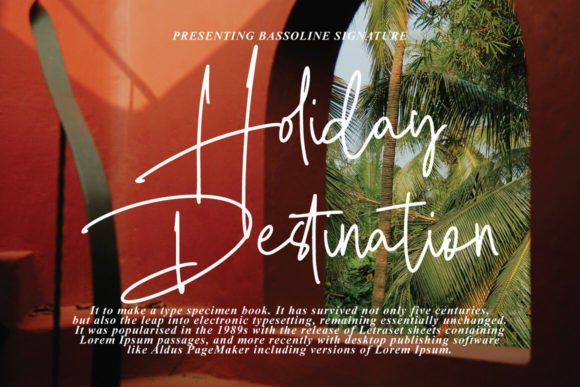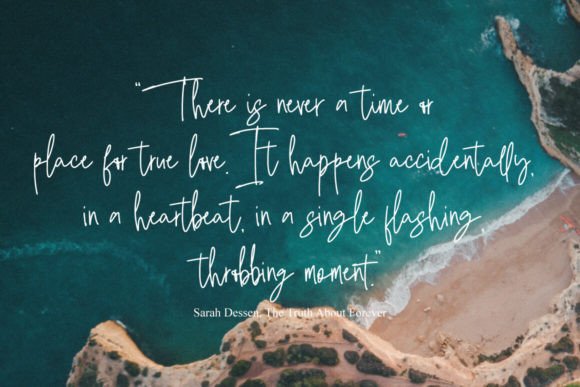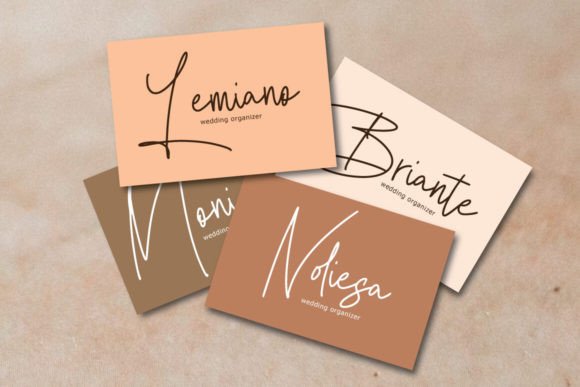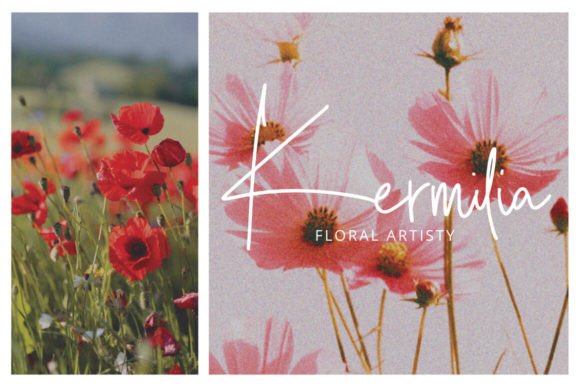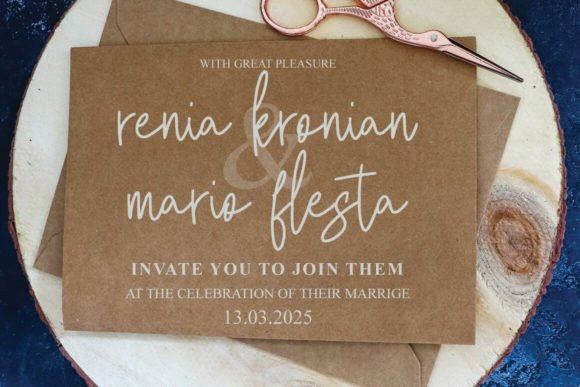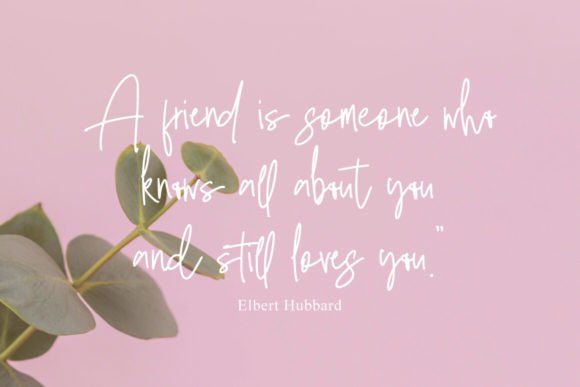
The Perfect Blend of Art and Typography: Introducing Bassoline Font
Have you ever been stuck in a creative rut, searching for the perfect font to elevate your design project? You’re not alone. As a designer, I’ve been there too, scouring through font libraries, only to find that something’s missing – a little extra flair, a dash of personality, or a pinch of whimsy. That’s when I stumbled upon the Bassoline Font, and my design world was forever changed.
This beautiful font, with its handmade signature style and decorative characters, is a game-changer for designers. With 200+ glyphs and a range of Open Type features, Bassoline Font is perfect for creating stunning invitations, greeting cards, branding materials, business cards, quotes, posters, and more. Whether you’re a seasoned pro or just starting out, this font is a valuable addition to your design toolkit.
- Unique Characteristics: Bassoline Font features a unique blend of modern and vintage elements, with a distinctive italic and bold style that sets it apart from other fonts.
Bassoline Font Review
I recently had the chance to work with the Bassoline font, and I must say it’s a unique addition to any design project. Here’s my honest review of what I liked and what I didn’t.
- ✨ Unique aesthetic: Bassoline has a distinctive, quirky feel that’s perfect for projects that need a bit of whimsy.
- ✨ Highly legible: Despite its quirky feel, Bassoline is surprisingly easy to read, making it a great choice for body text.
- ✨ Wide language support: Bassoline supports a wide range of languages, including Latin, Cyrillic, and Greek.
- ⚠️ Limited typographic control: Bassoline’s quirky feel can make it difficult to achieve precise typographic control, which may be a challenge for designers who require high levels of precision.
- ⚠️ Limited font weights: Bassoline is available in only a few font weights, which may limit its versatility in certain design projects.
Bassoline is a great choice for designers who want to add a bit of personality to their projects. While it may not be the best choice for projects that require precise typographic control or a wide range of font weights, it’s a great option for those who want to add a bit of whimsy and visual interest to their designs.
Some common use cases for Bassoline font include: creating elegant and sophisticated designs, adding a touch of luxury to your branding, and using it as a headline font to grab attention. To get the most out of Bassoline font, experiment with different font sizes, colors, and combinations to find the perfect look for your design.
Alternatives to Bassoline Font
The Bassoline Font is a unique and elegant sans-serif font. However, it may not be the best choice for every design project. Here are some alternatives:
Montserrat is a sans-serif font that originated in Buenos Aires. It’s designed to be highly legible, making it perfect for body text and large blocks of text. Montserrat has a similar feel to Bassoline Font but with a more geometric shape and a wider range of weights.
Use Montserrat when you need a clean and modern font that can handle large amounts of text.